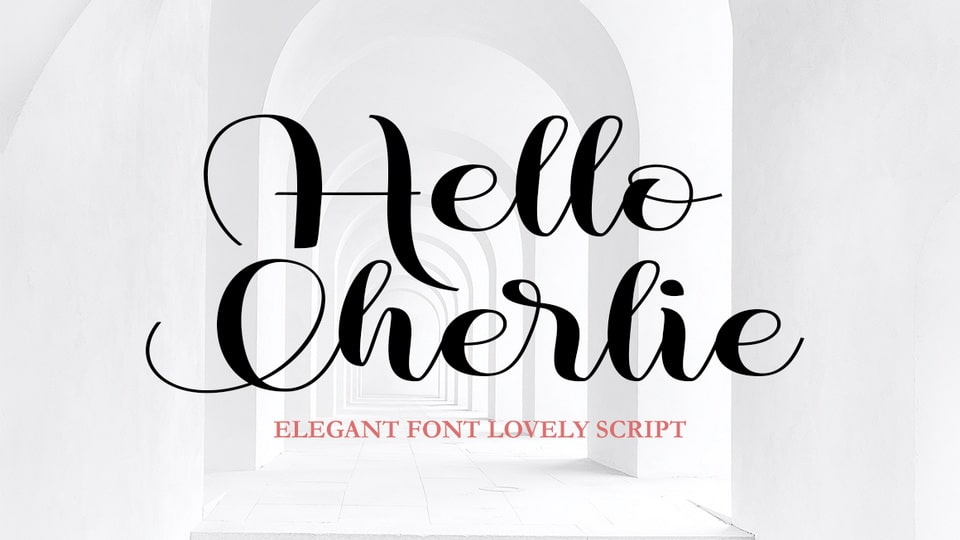
Jan 30, 2025Script & HandwrittenHello Cherlie Font Hello Cherlie is a modern brush script font. The letters have soft terminals and a bit of bounce. Hello Cherlie has two sets of uppercase letters, one simpler and the other more flashy. Font DetailsDesigned by: GatypeWebsiteLicense: Free for personal use Download Hello Cherlie FontFile size: 153.30 KBCreated: February 16, 2025Updated: February 16, 2025 Download Explore similar fonts Hello Marlisa Font Hello Honey Font Hello Christmas Font Hello Magic Font Hello Yasmin Font Hello Fyndina Font # Calligraphy# Hand-drawn# Handwriting# Holiday# Pretty# Wedding More fonts by GatypeBaby Mentani FontLousiana FontMongalia FontArkusi FontBrave Love FontFoline FontGantole FontVainest Font